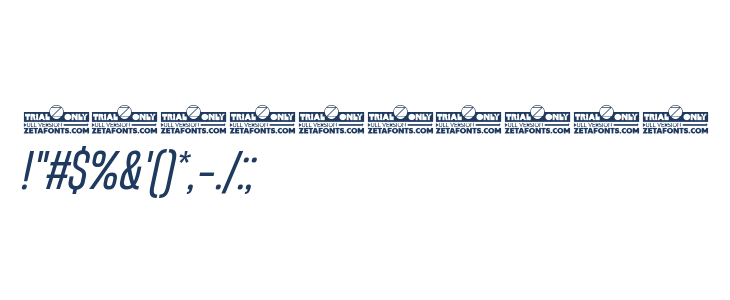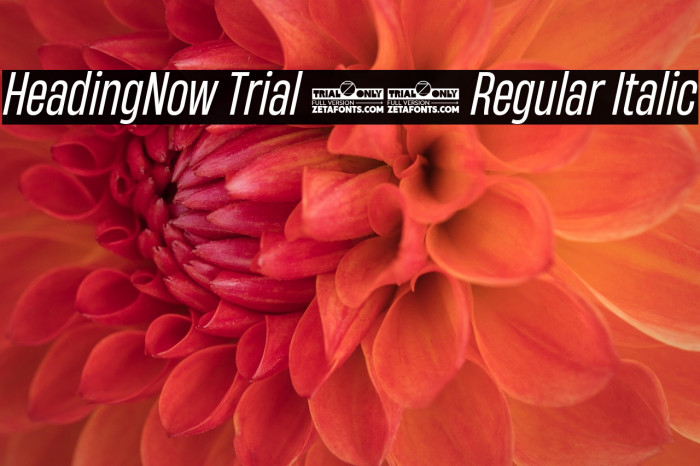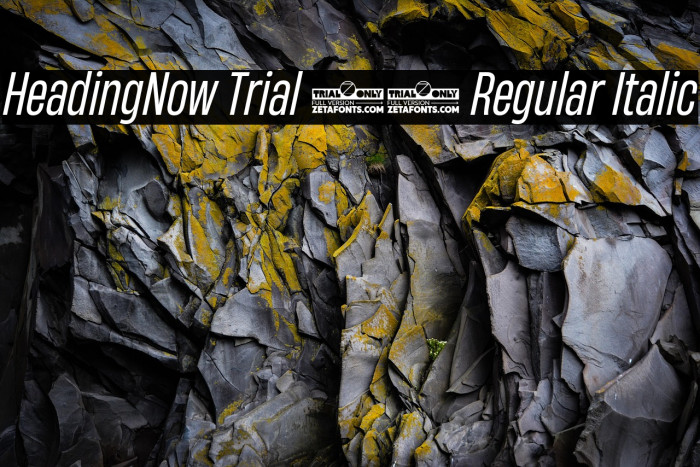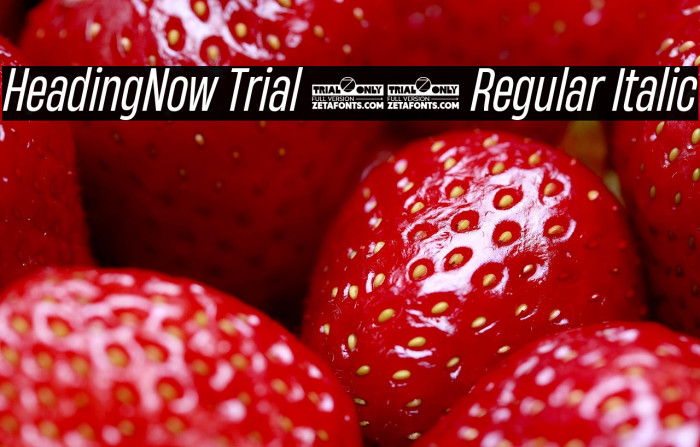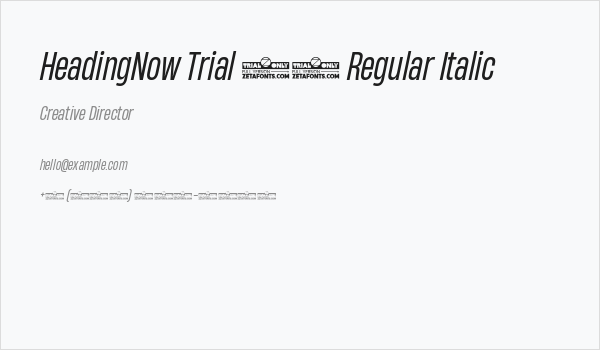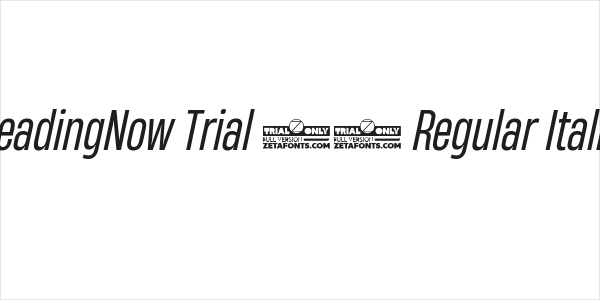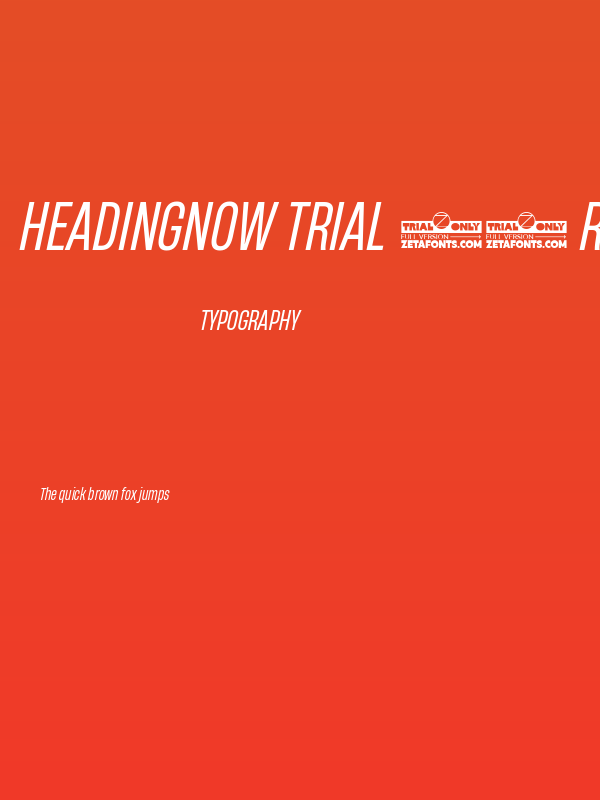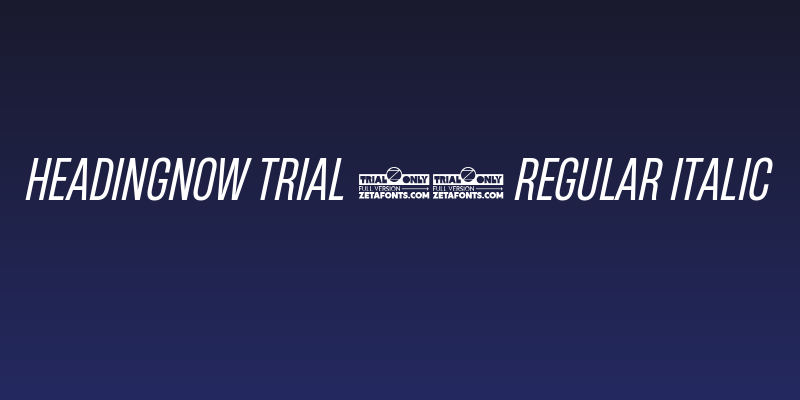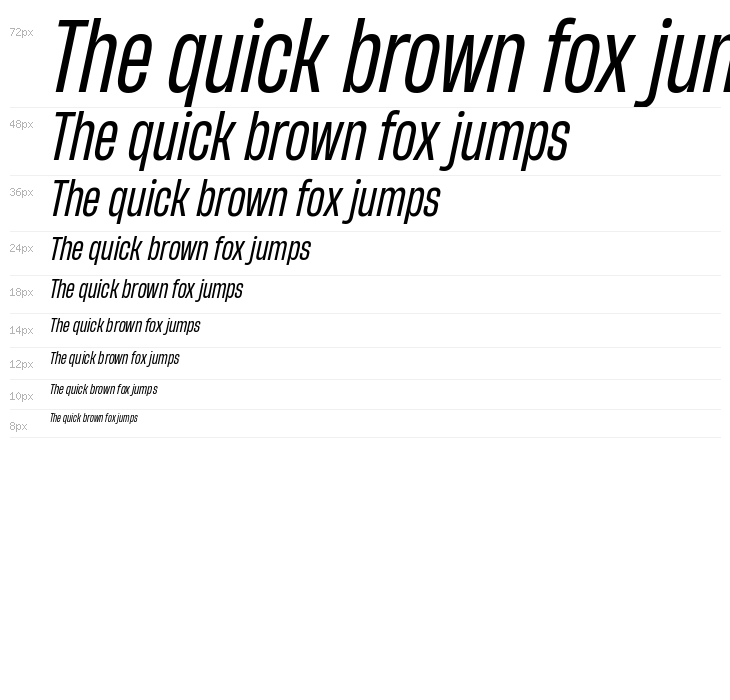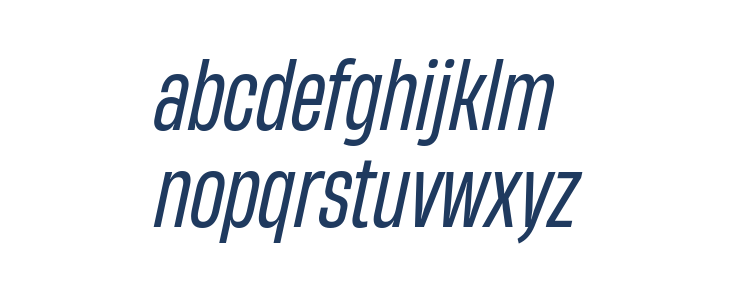
HeadingNow Trial 44 Regular Italic Font
HeadingNow Trial 44 Regular Italic Description
This font features a sleek and modern design with a distinct italic slant, giving it a dynamic and forward-moving appearance. The characters are tall and narrow, contributing to a condensed look that maximizes space efficiency. The strokes are consistent in weight, providing a uniform and clean aesthetic. The uppercase and lowercase letters maintain a harmonious balance, while the numerals and special characters are designed to complement the overall style. This font's contemporary feel makes it suitable for various design applications.
| Proposed Projects | Ideal for use in headlines, branding, advertising, and editorial design where a modern and dynamic look is desired. |